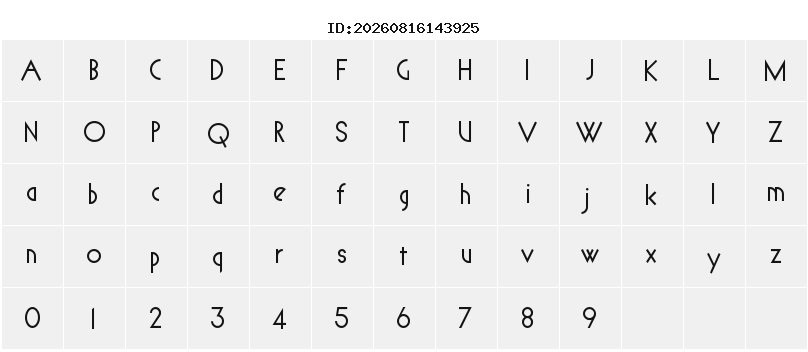
Spyrogeometric Preview
• Font Name: Spyrogeometric
• Full Font Name: Spyrogeometric
• Version: Version 1.00 November 22, 2007, initial release
About Spyrogeometric.ttf
Spyrogeometric.ttf is a modern, elegant sans-serif font designed for ultimate readability and visual harmony. Perfect for branding, headlines, web design, and print materials.